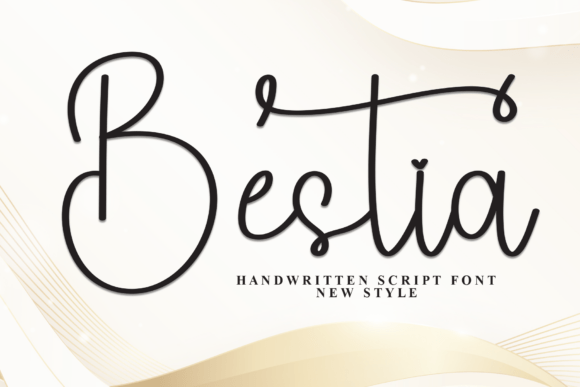
The Elusive Perfect Font: My Journey with Bestia
I still remember the design project that led me to discover Bestia, a stylish script font that has since become a staple in my creative toolkit. I was working on a logo design for a boutique client, and I was struggling to find the perfect font that exuded both elegance and playfulness. The client wanted something that would reflect their brand’s artistic and modern personality, but I was coming up blank. That’s when I stumbled upon Bestia, and it was love at first sight! 💕
An Honest Review of Bestia
So, what makes Bestia so special? Let’s dive into the good stuff and, of course, the not-so-perfect aspects.
- ✨ Fluid brush strokes that give it a hand-painted feel
- ✅ Dynamic curves and expressive letterforms that add visual interest
- 💫 Perfect blend of artistic flair and contemporary elegance
- 🎨 Versatile and adaptable to various design projects, from logos to social media graphics
While Bestia is an amazing font, it’s not without its quirks. Here are a few things to keep in mind:
- ⚠️ Some letters may require manual kerning for optimal spacing
- 🤔 Limited use of uppercase letters, but the stylistic alternates make up for it
The Story Behind Bestia
Bestia was designed with the intention of capturing the essence of hand-painted calligraphy with a modern twist. The designer aimed to create a font that would exude artistic flair and contemporary elegance, making it perfect for creative projects and designs that require a touch of sophistication.
Q: What makes Bestia unique?
A: Bestia’s fluid brush strokes, dynamic curves, and expressive letterforms set it apart from other fonts. Its perfect blend of artistic flair and contemporary elegance makes it a versatile choice for various design projects.